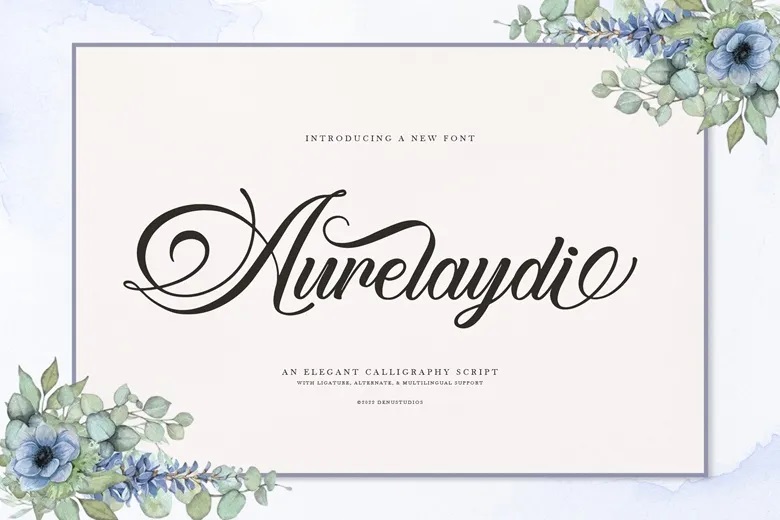
Aurelaydi Font
Aurelaydi is an advanced calligraphy script font that has been doing timeless grace and luxurious elegance. The flowing, rhythmic movement and sweeping drama and flourishes that frame the words characterize this typeface. The letterforms have a classic inclined axis with an exquisite contrast of thicker, downstrokes and thinner, wispy hairlines.
The font is designed to be versatile with a variety of ligatures and alternative characters, extensive multilingual support. It can be used in luxury wedding stationery, boutique brand identities, high-end event invitations, and high-end editorial designs in which a hand-lettered, romantic quality is needed.
Aurelaydi Calligraphy Script Font